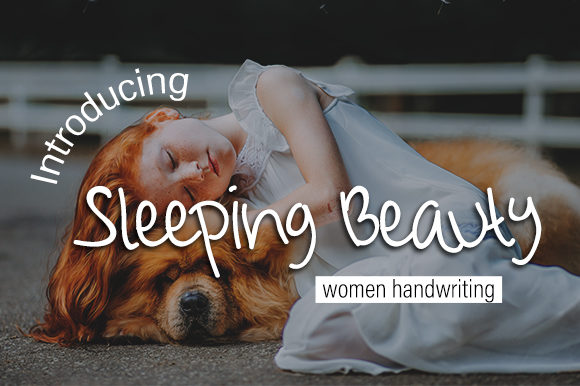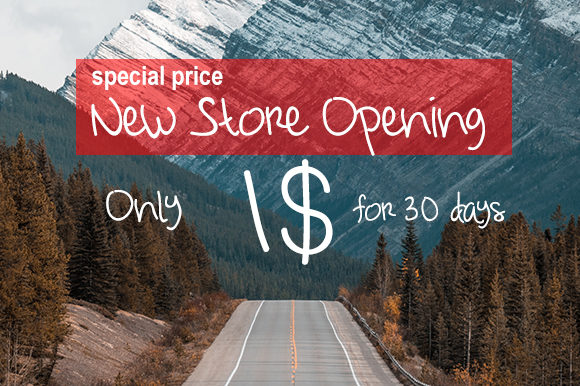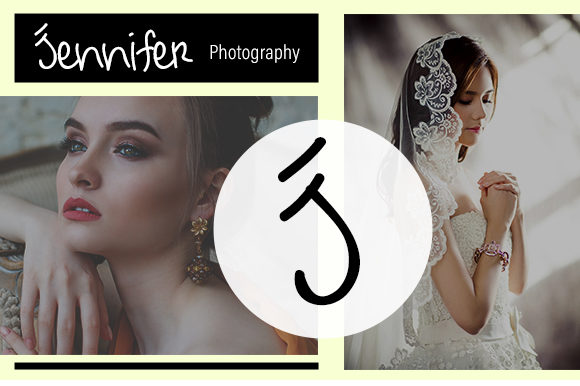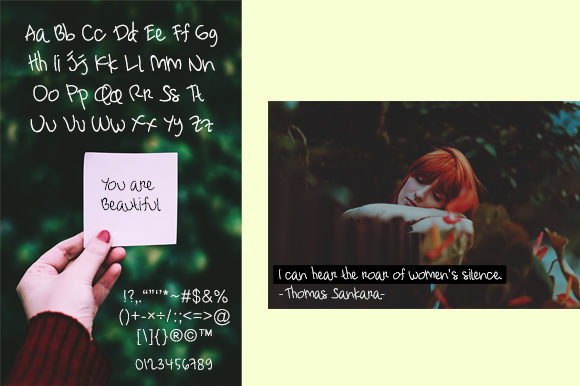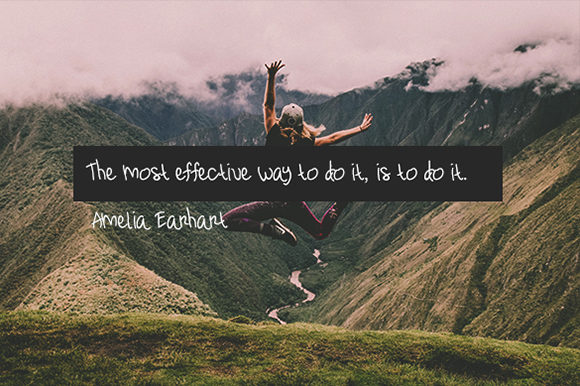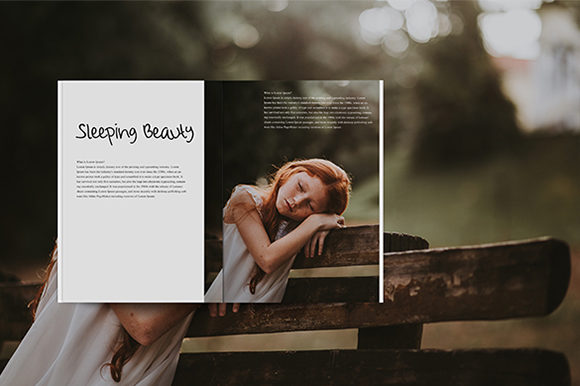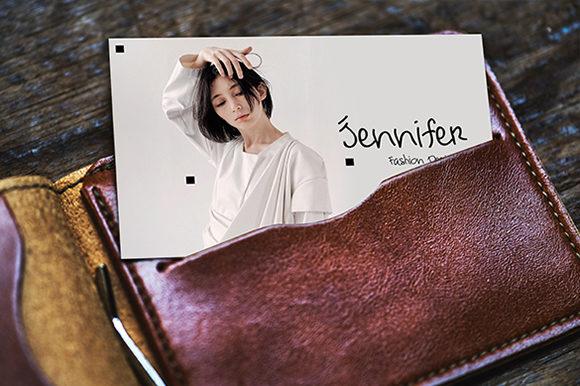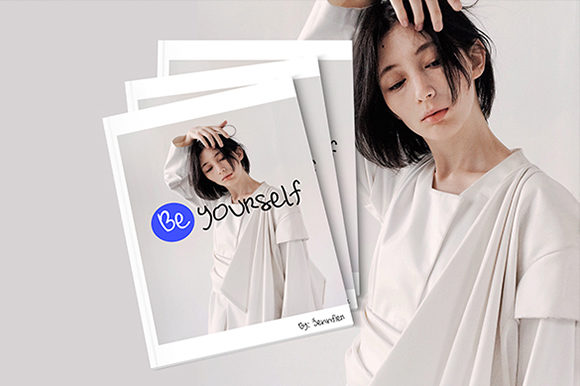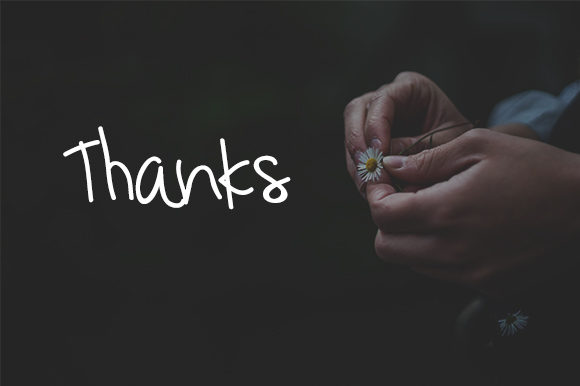
Sleeping Beauty Font
About Sleeping Beauty Font
Sleeping Beauty is a cute and charming handwritten font with a light feel. It will add a personal spark to any design project!